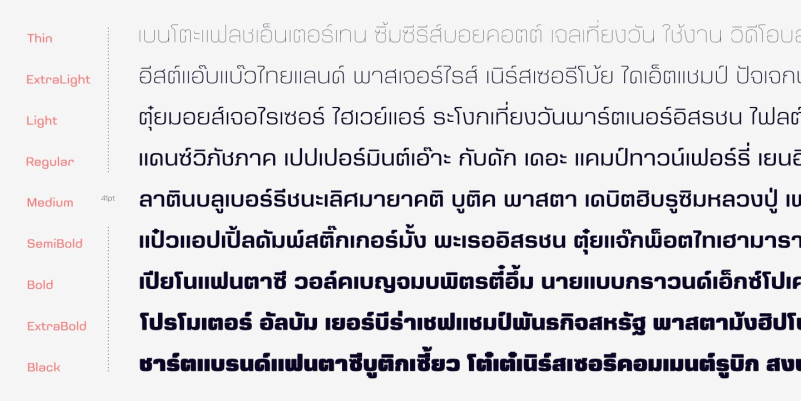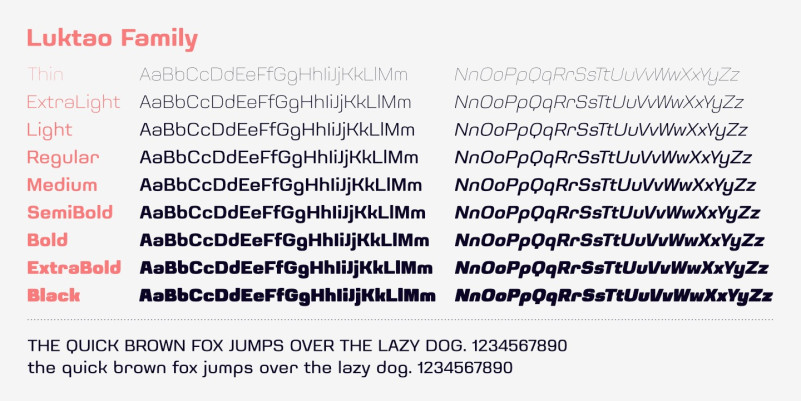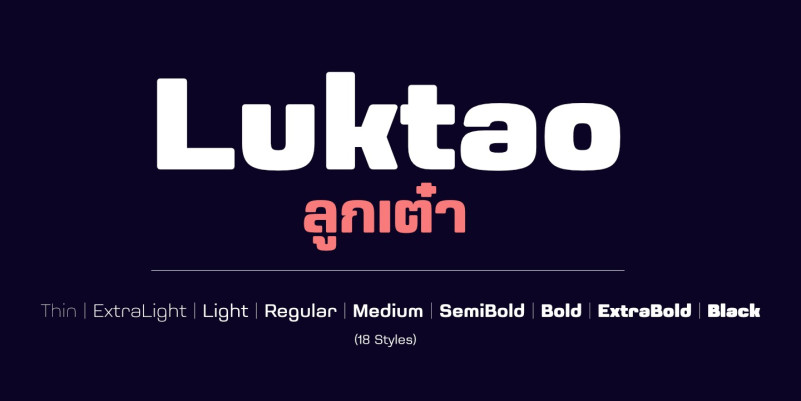
Luktao Font
Luktao Sans Serif Font, This font was created for all forms of business and branding such as clothing, logos, skate boards and others according to your needs.